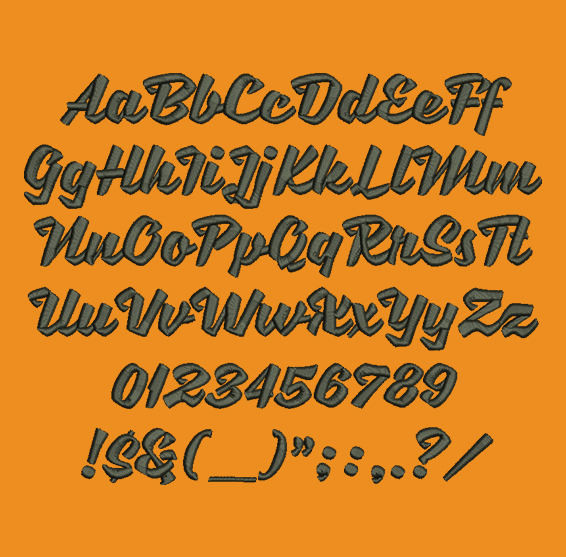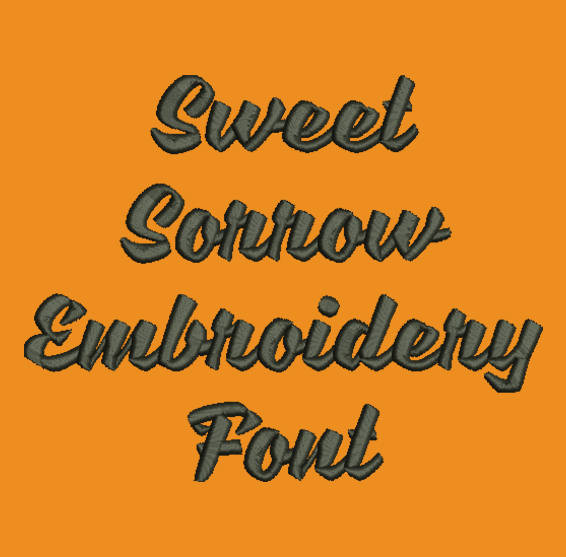
This stitch out perfectly.
Title: Sweet Sorrow machine embroidery font
This Sweet Sorrow font is perfect for personalizing clothes, bags, towels and linens!